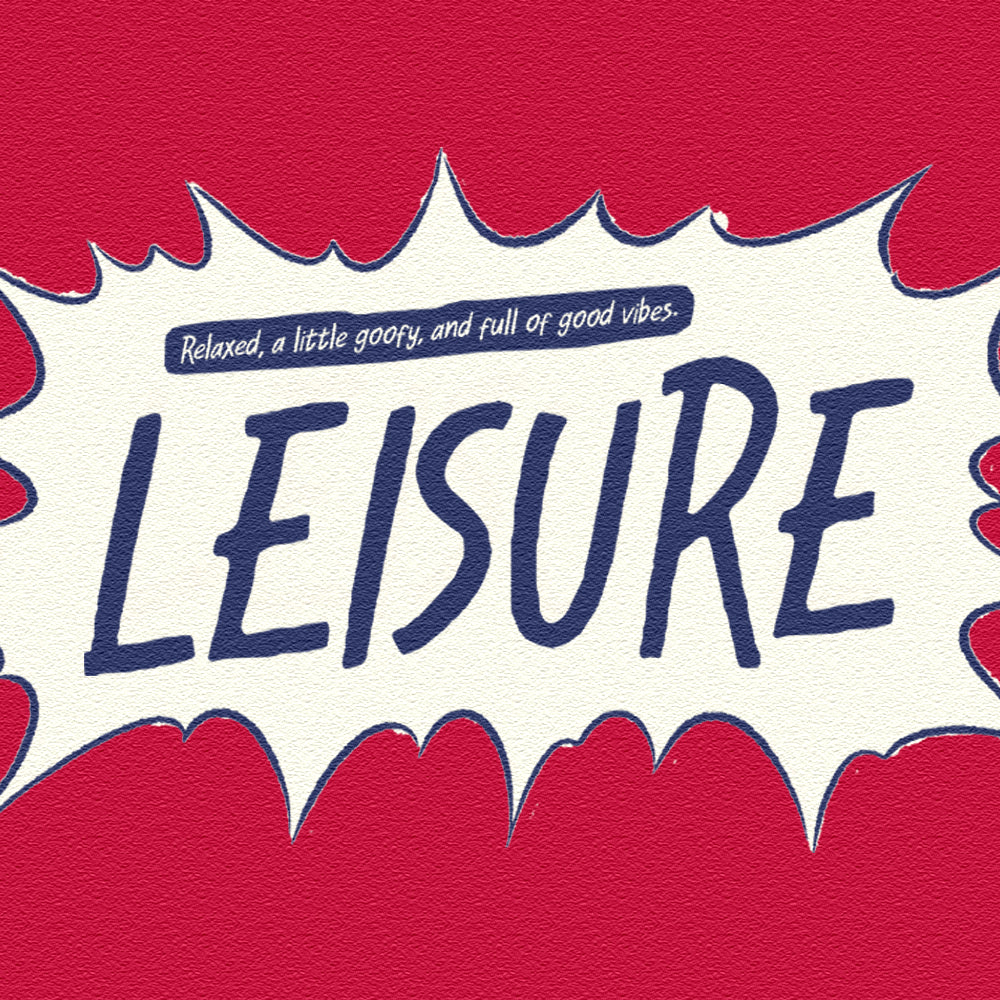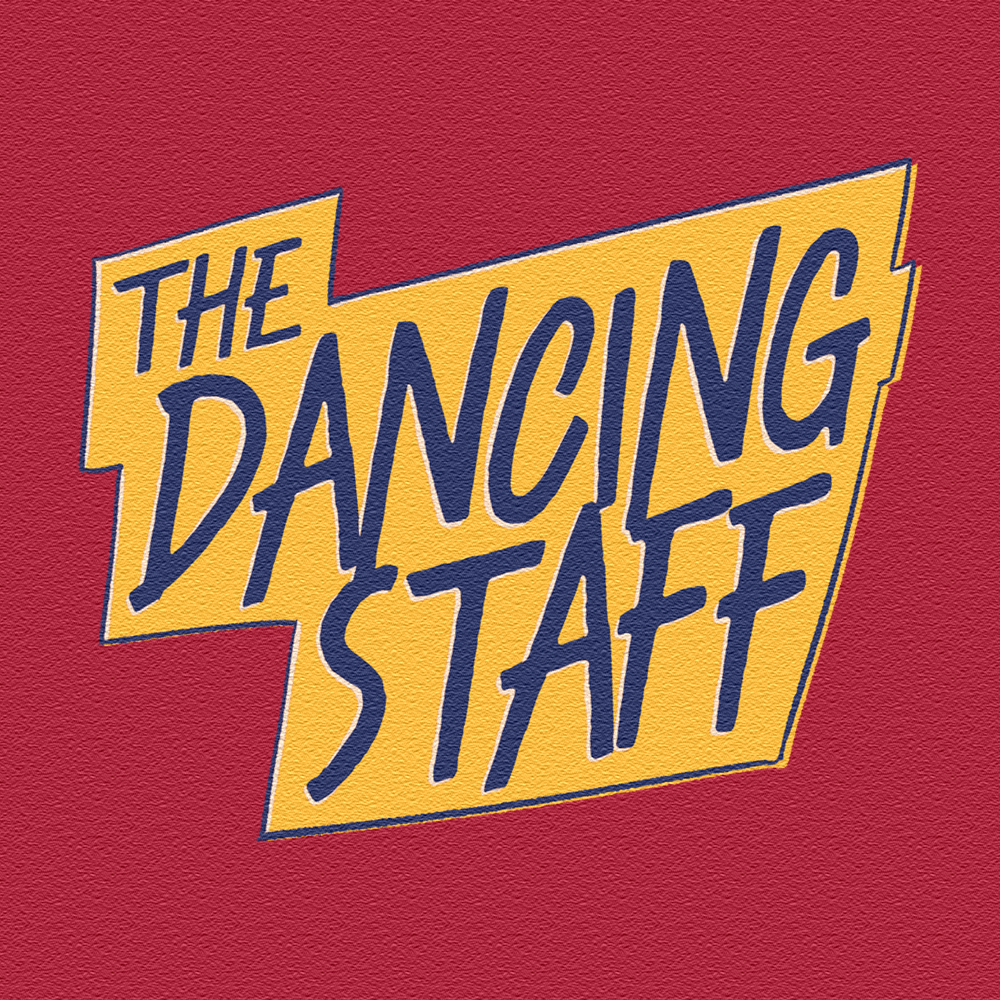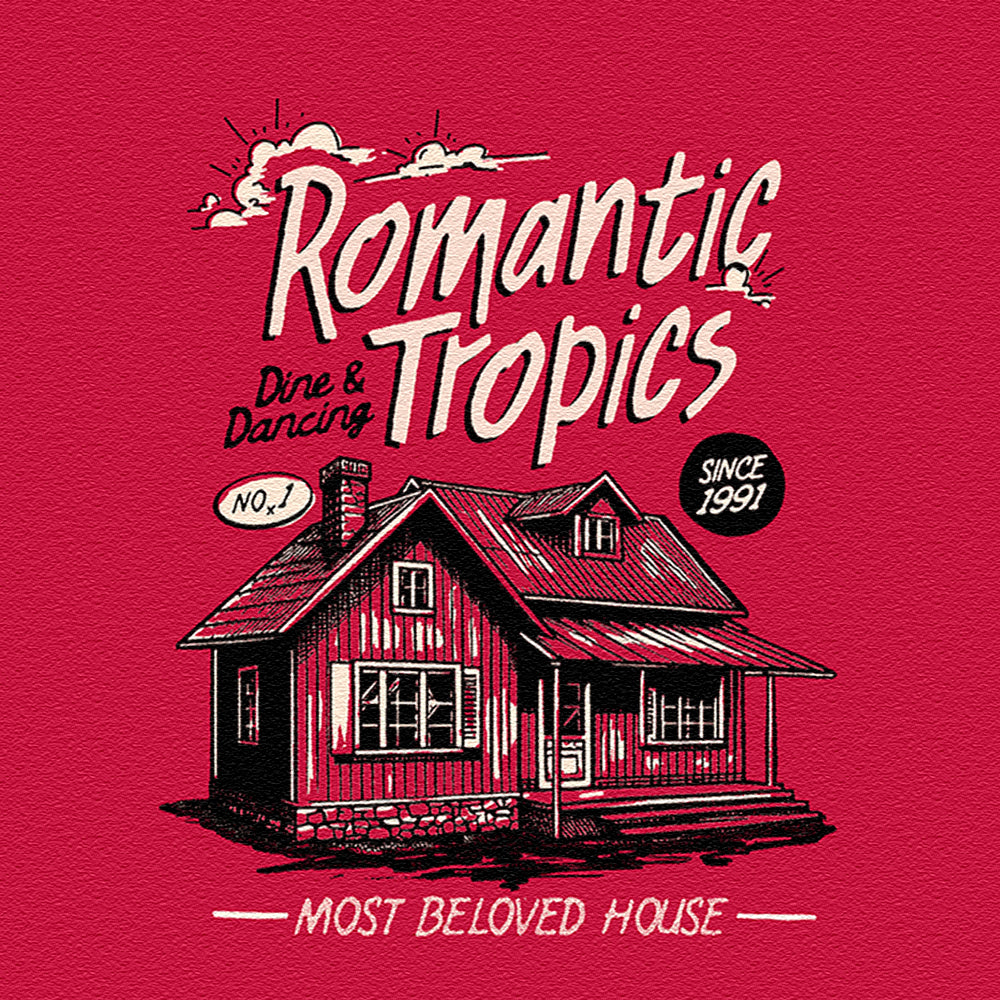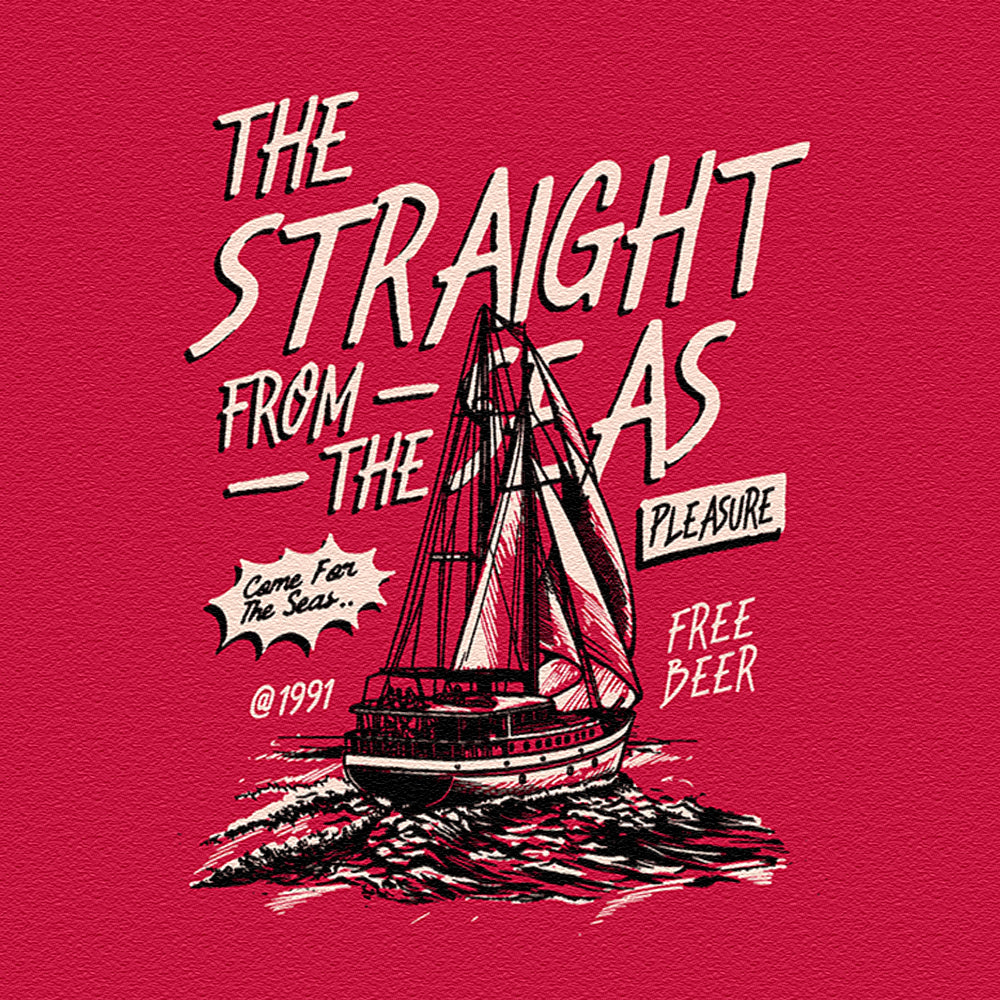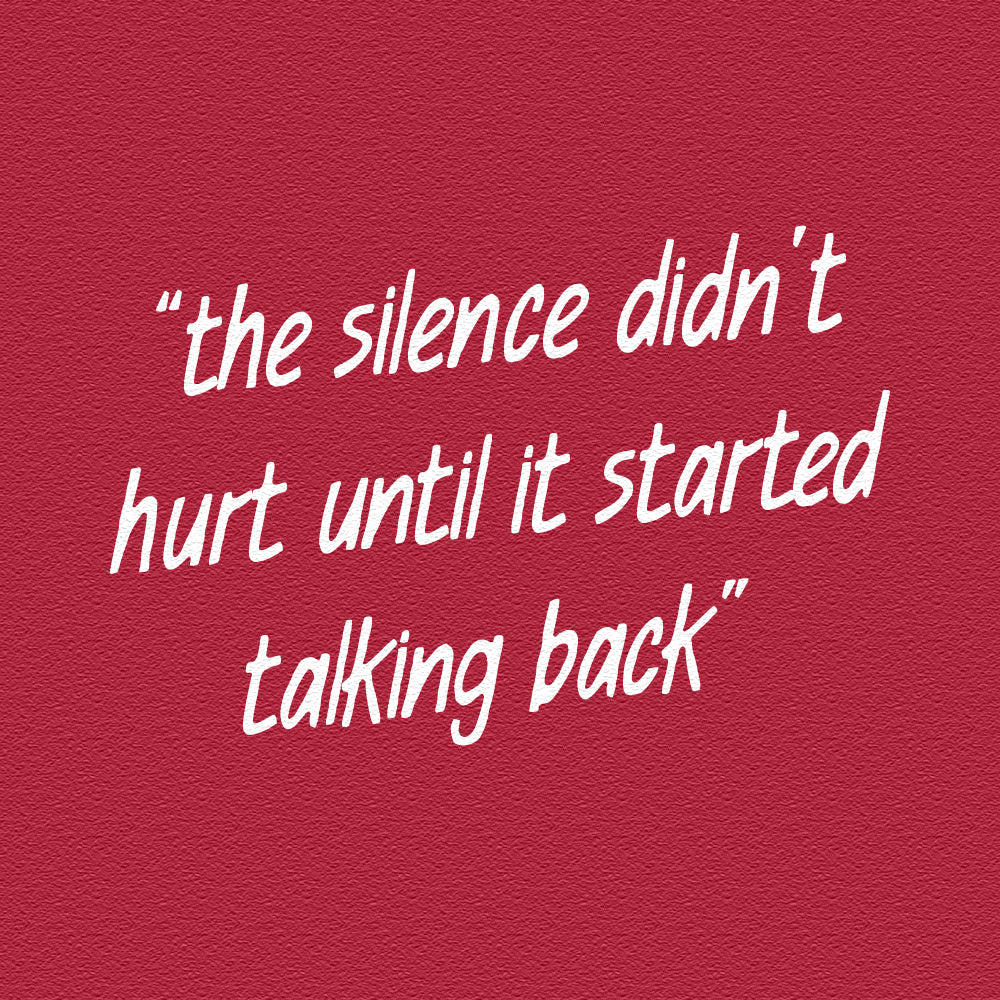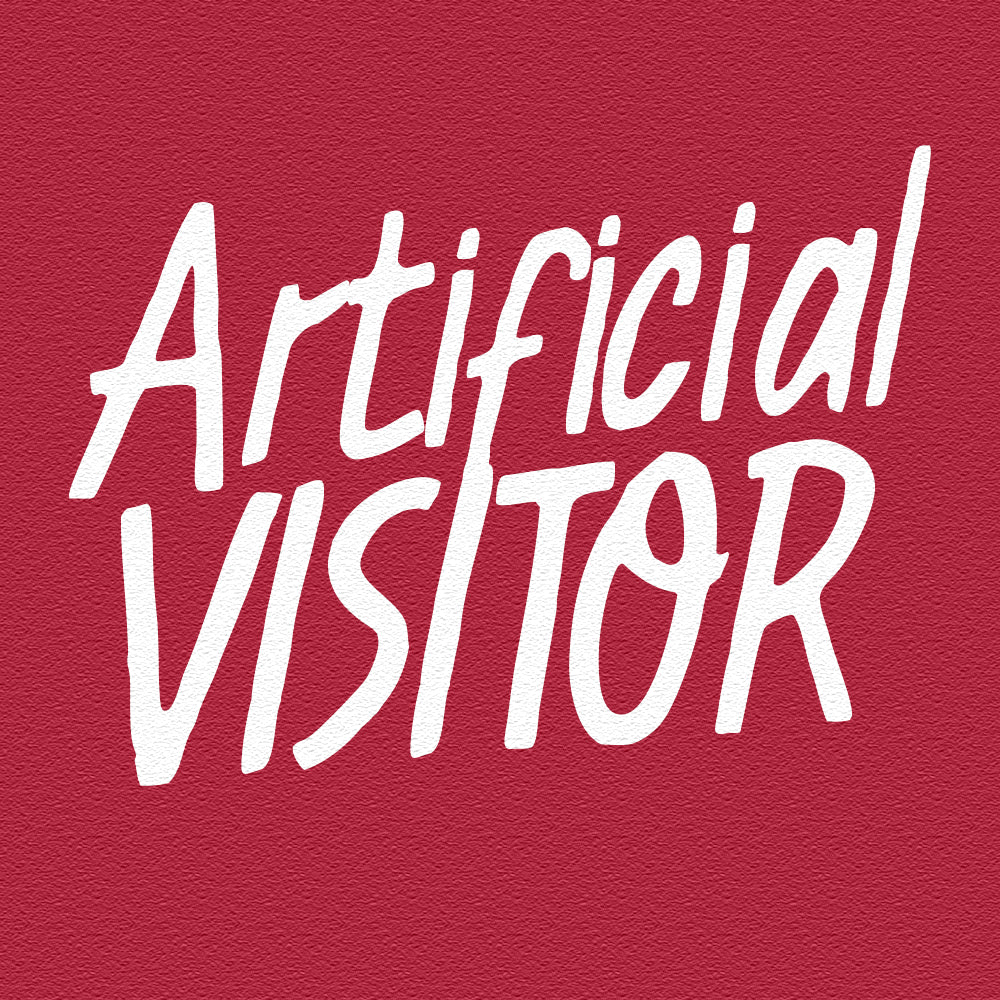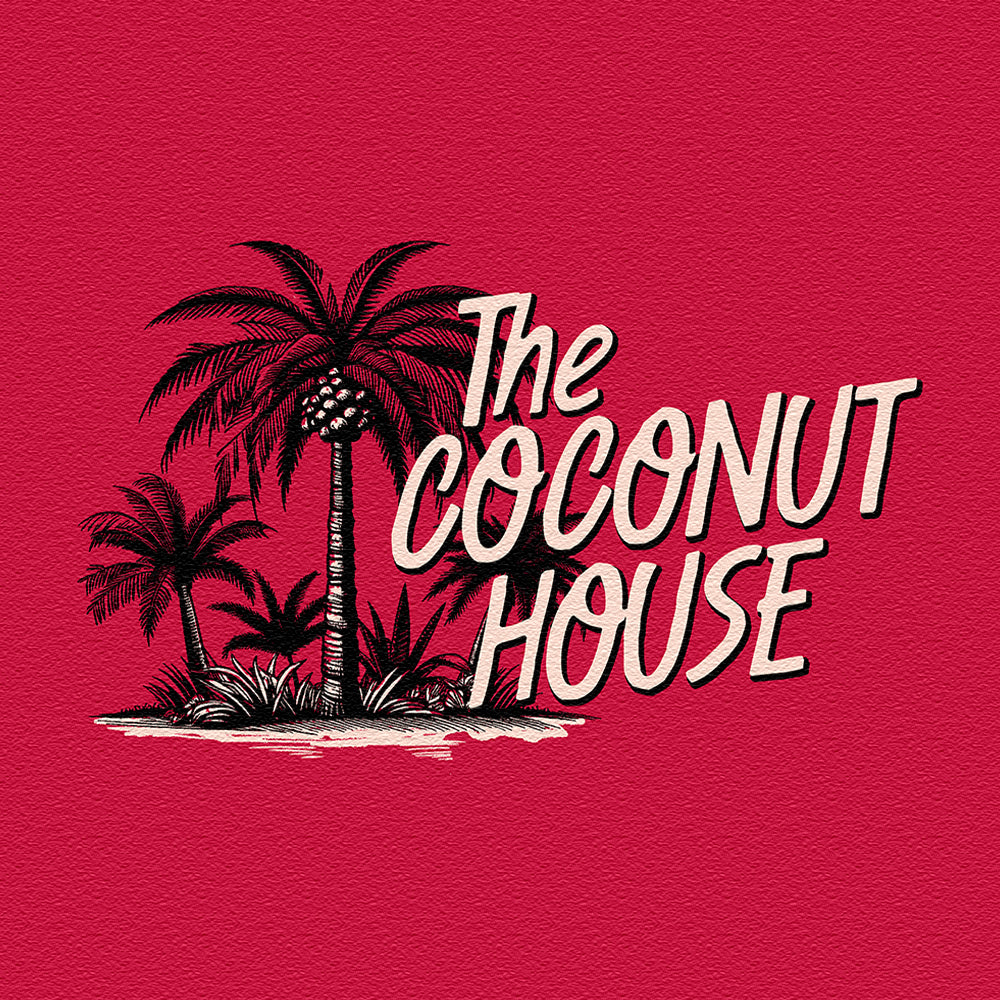
Leisure - Handwritten Brush Font
Leisure - Handwritten Brush Font is a playful, handwritten typeface featuring tall, quirky letters that convey a relaxed style. This font is suitable for various design projects and is characterized by its unique brush-like appearance.